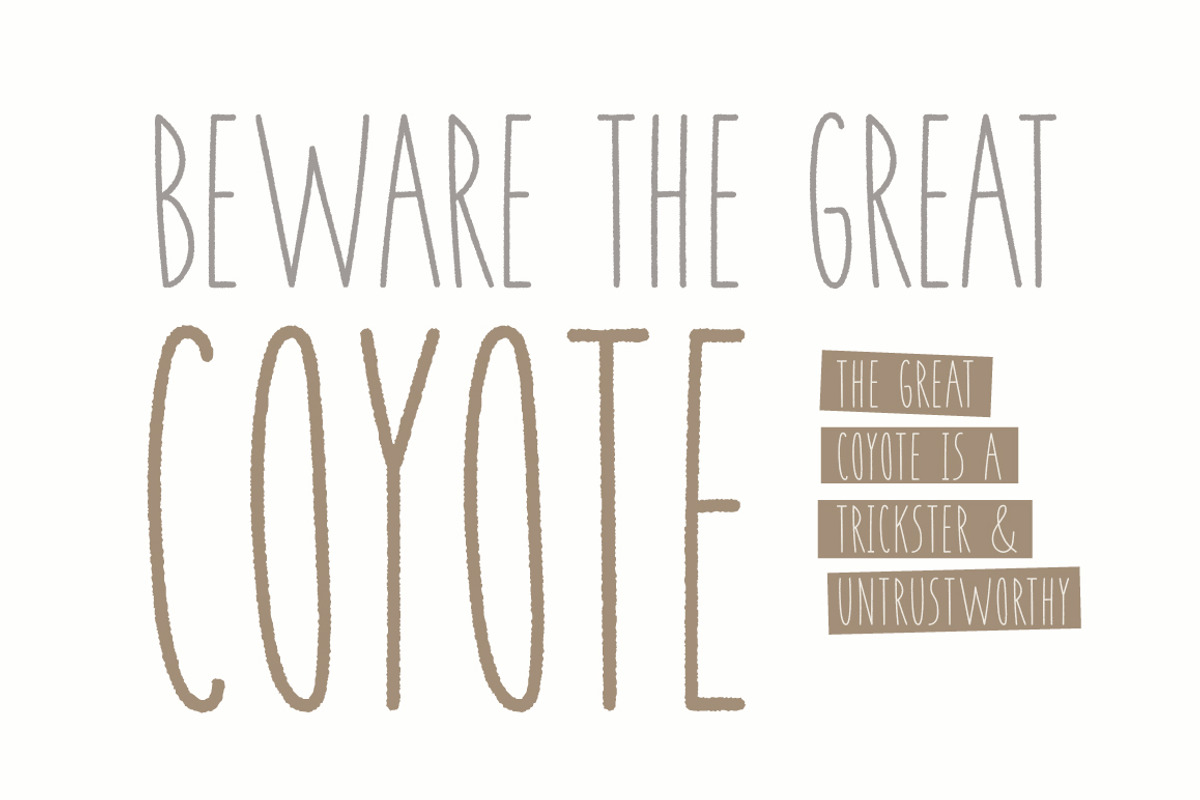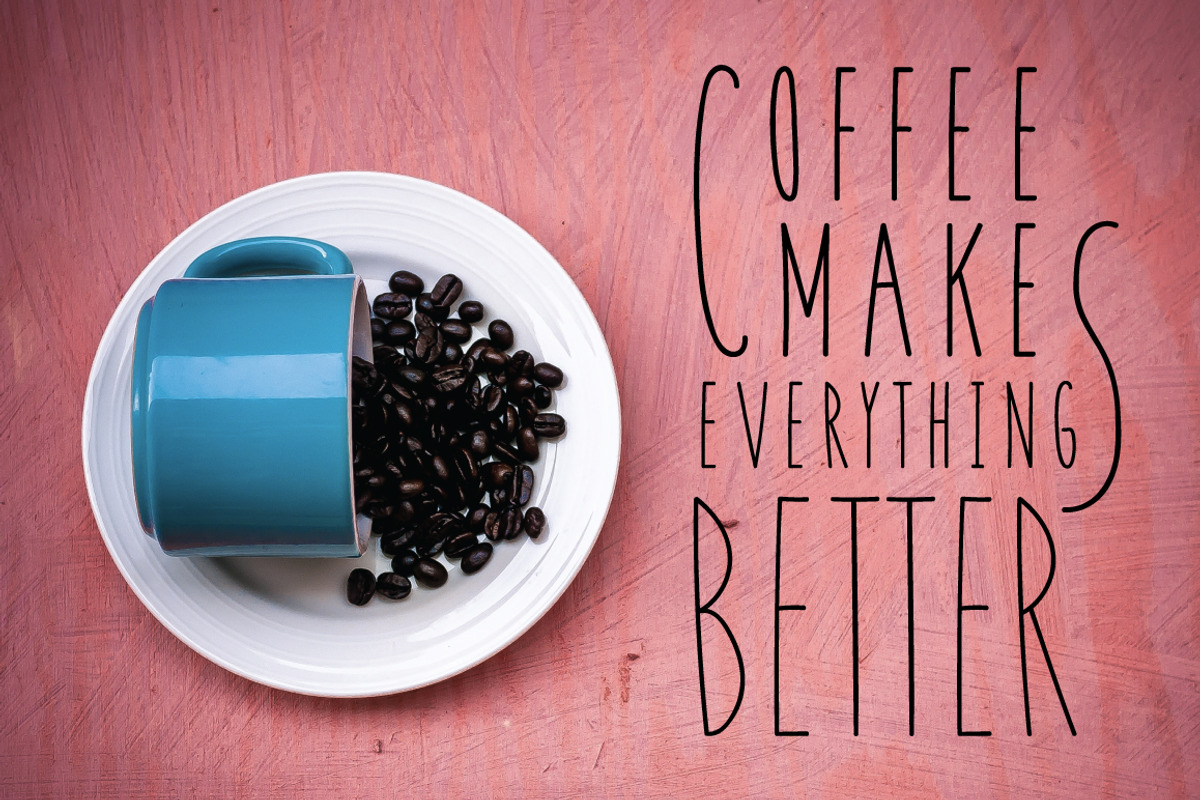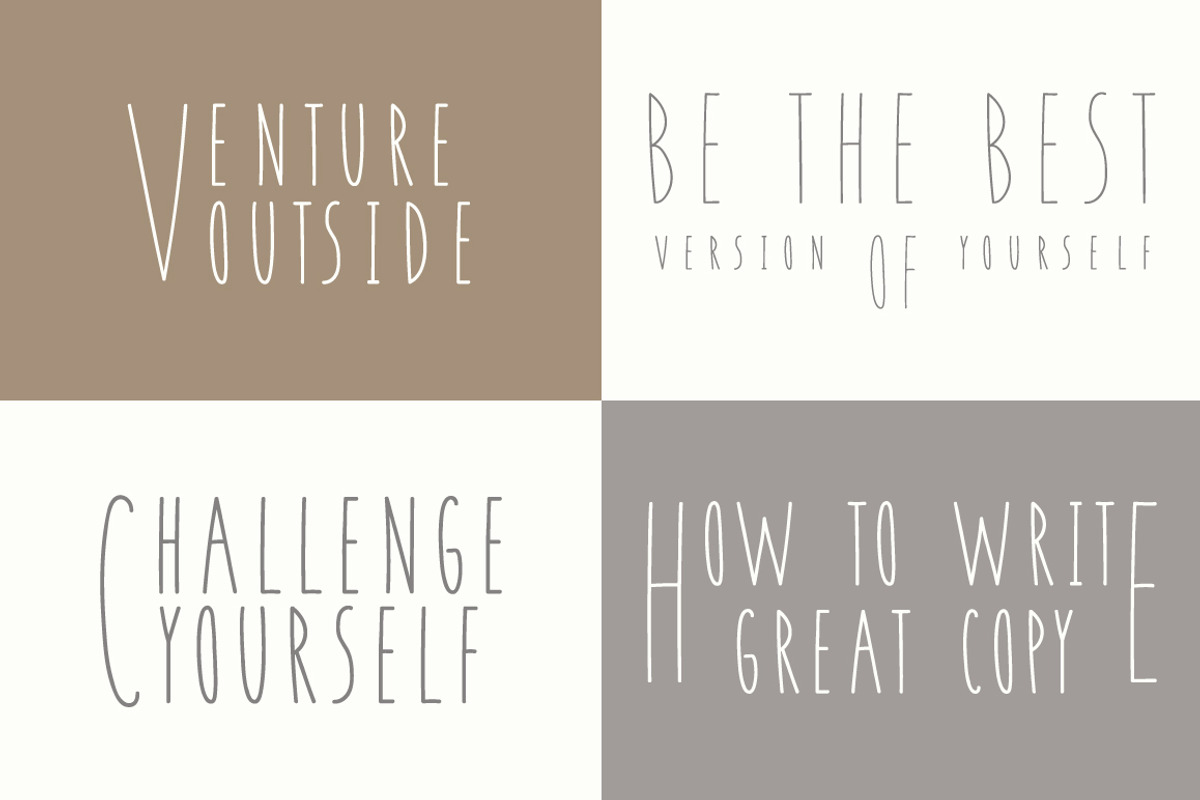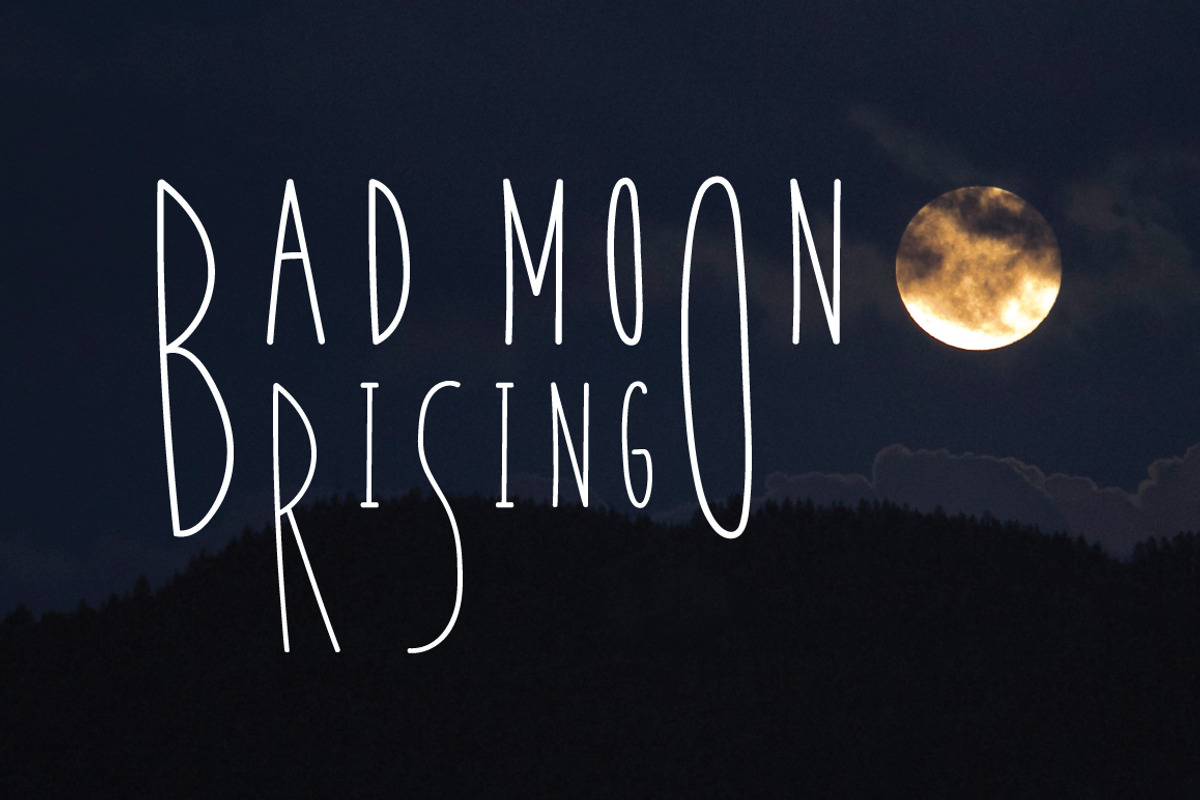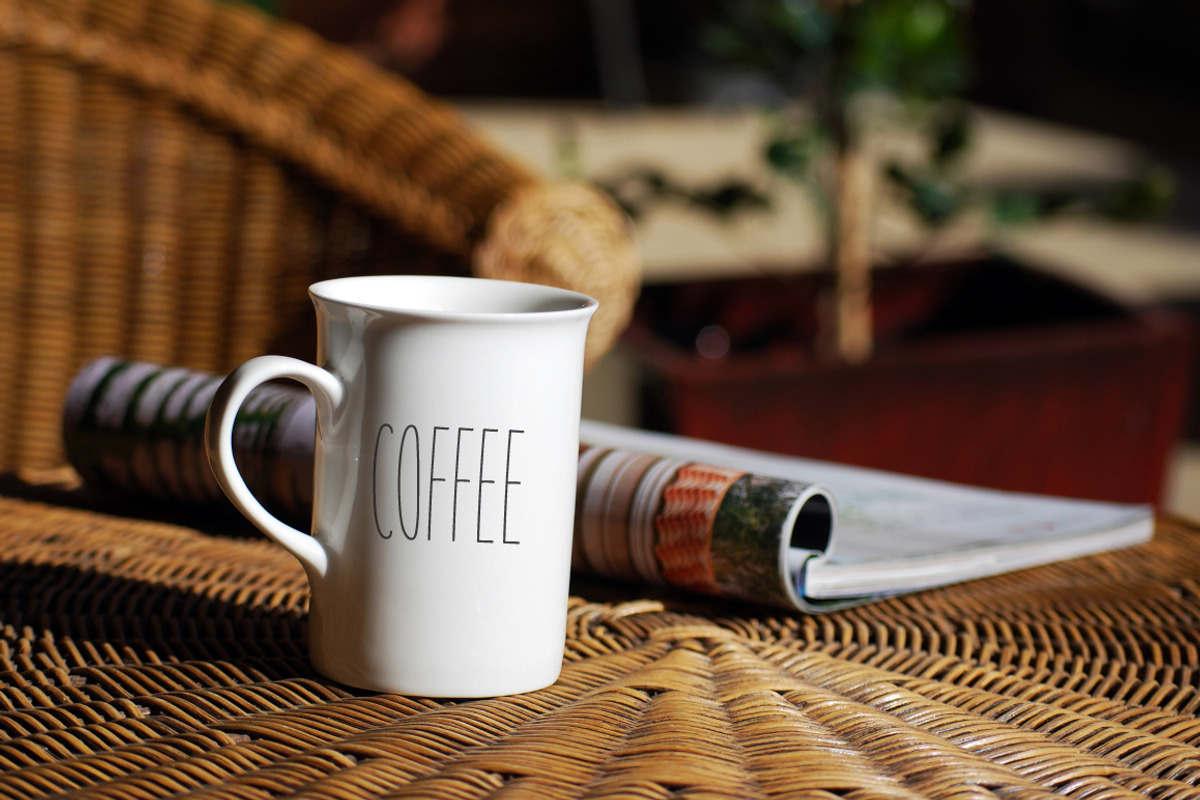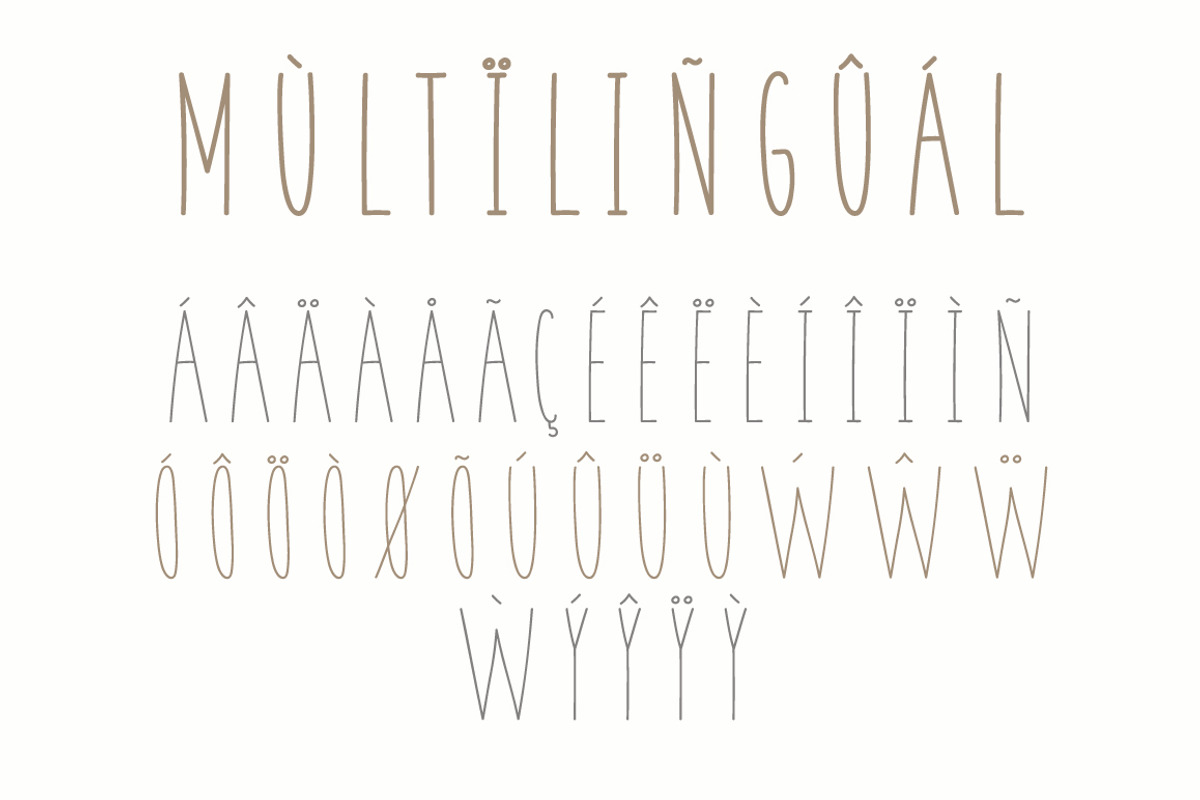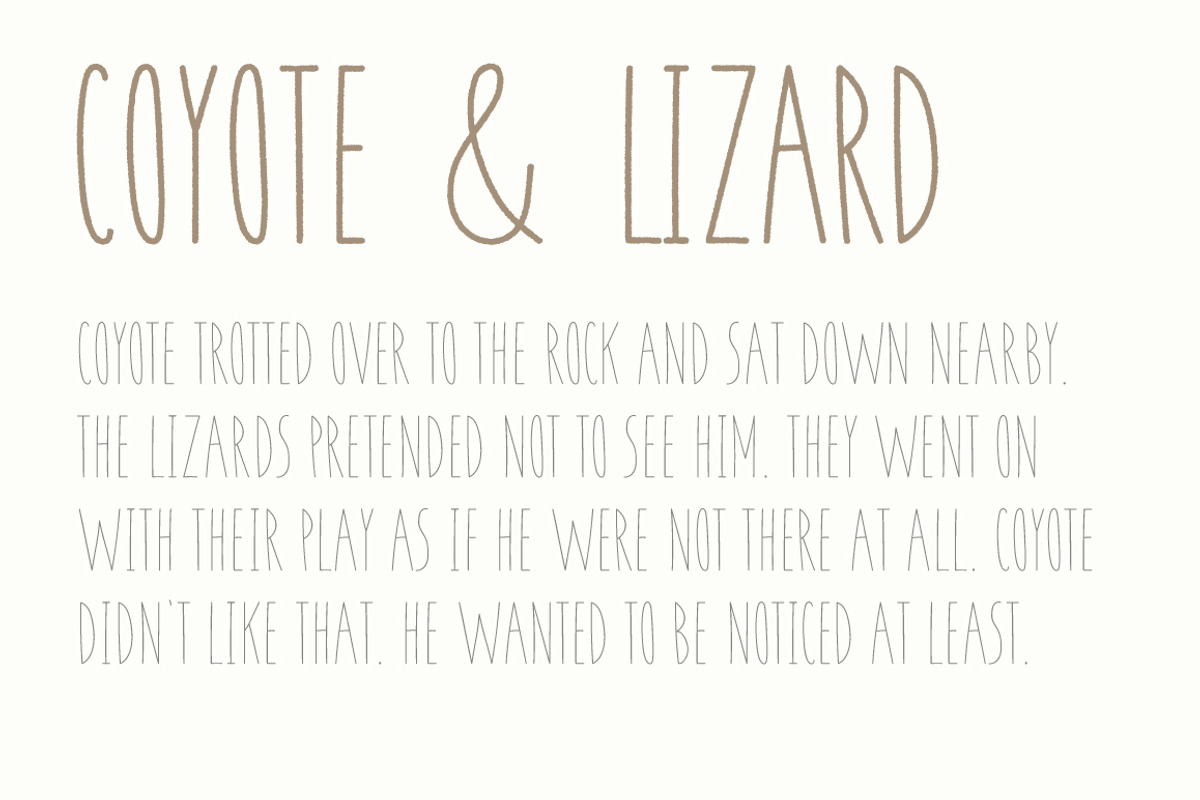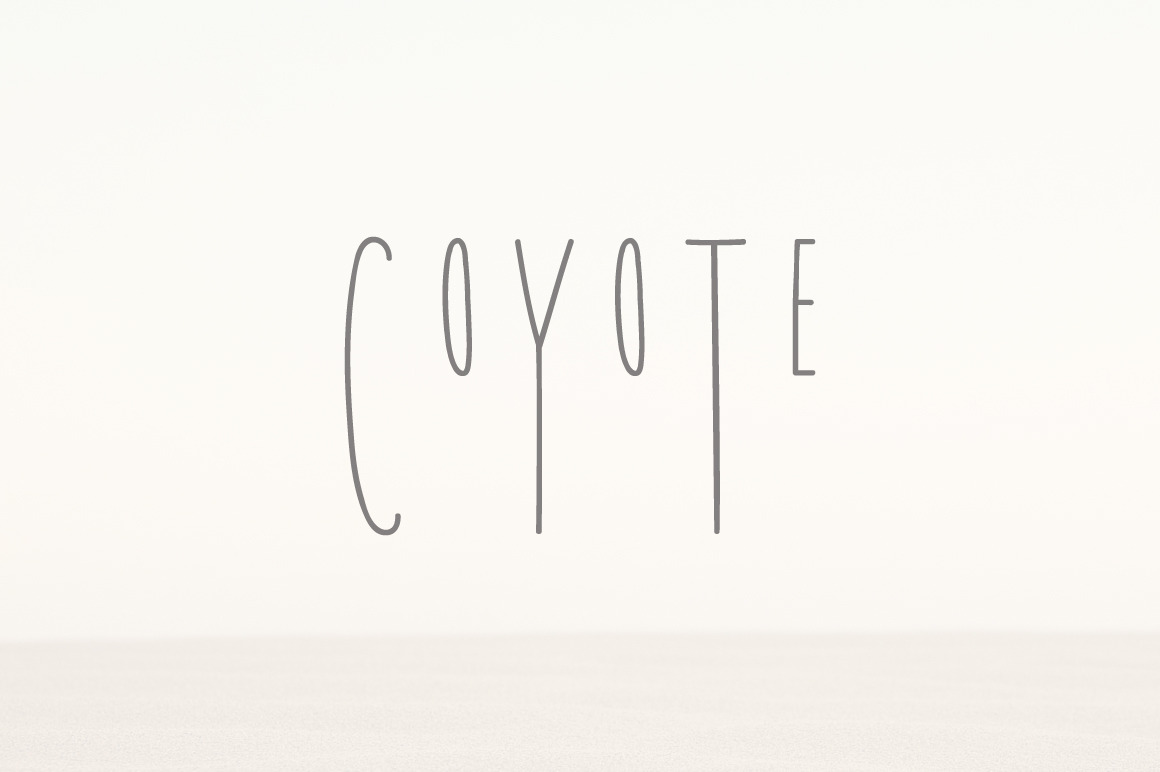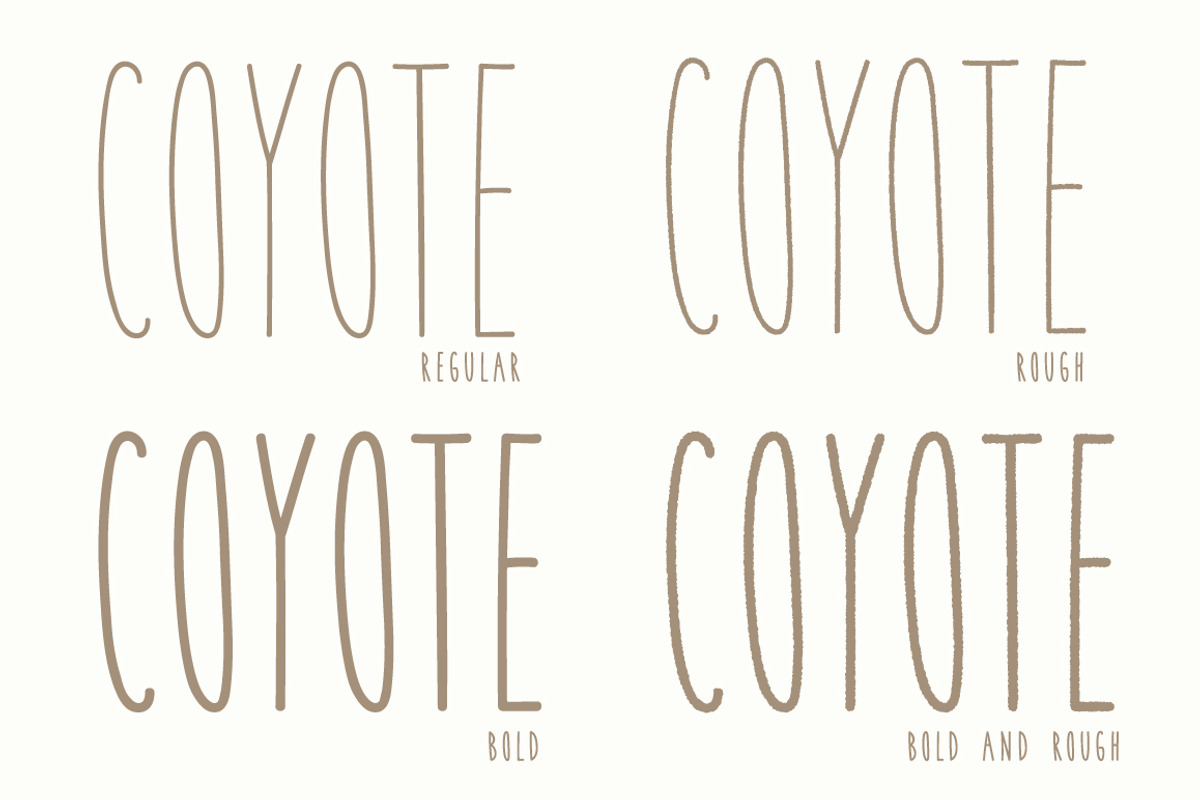
Coyote | A Playful Font
Coyote is a fun, handwritten font that's perfect for adding a handmade touch to your designs on invitations, cups, posters, wall decals, logos, quotes, and more. Coyote is an uppercase font with small caps for its lowercase, so you can play with and mix characters to create unique designs for any purpose. Frame words, create drop caps, or keep it simple with uppercase characters. Rough versions are included, too, for even more flexibility and creative control over your designs.
Coyote Regular A thin font that's perfect for handwritten designs and products.
Coyote Bold Mix and match with Coyote Regular for headers and subheaders.
Coyote Rough Great for roughening up a design and creating distressed graphics.
Coyote Bold-Rough Mix with Coyote Regular or Rough for contrast or big headlines.
Each font features the following:
Uppercase Characters
Punctuation & Numerals
International Character